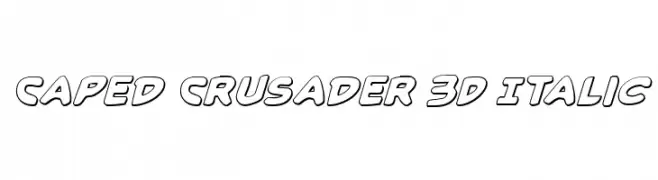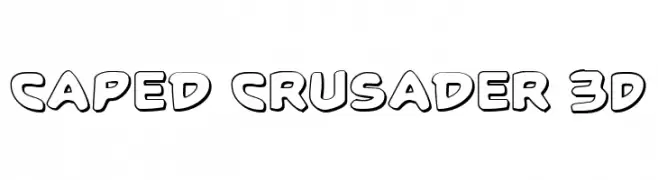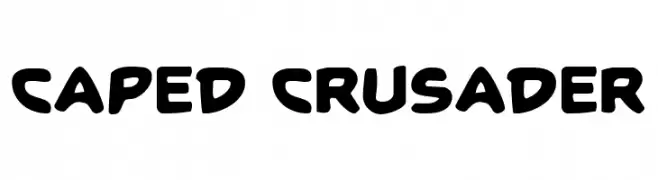
( Fonts by Iconian Fonts )
A bold, playful font with rounded edges and a hand-drawn feel.
( Fonts by Iconian Fonts )
A bold, playful font with a 3D effect and cartoonish style.
( Fonts by Iconian Fonts )
A bold, 3D italic font with a playful and dynamic style.
( Fonts by Iconian Fonts )
A bold, 3D, semi-italic font with a playful, comic book style.